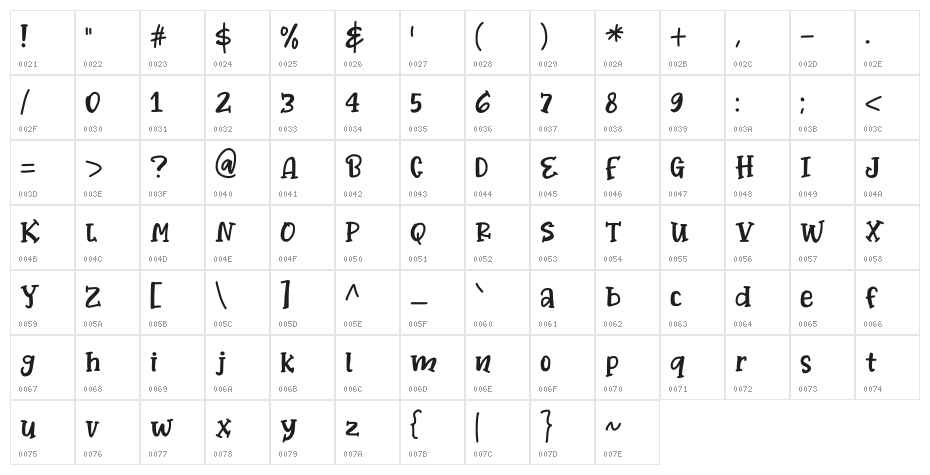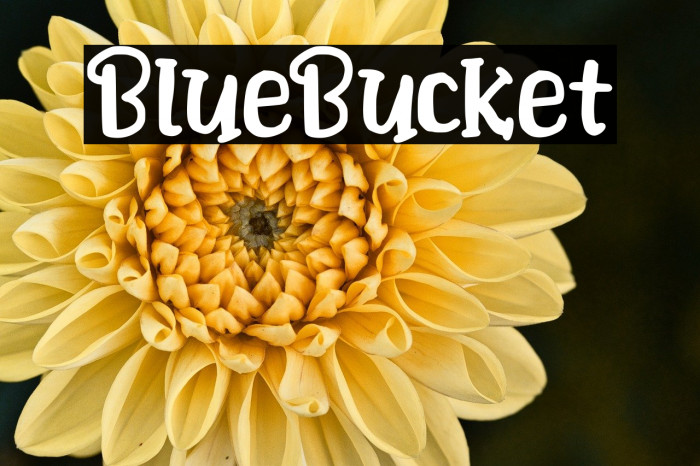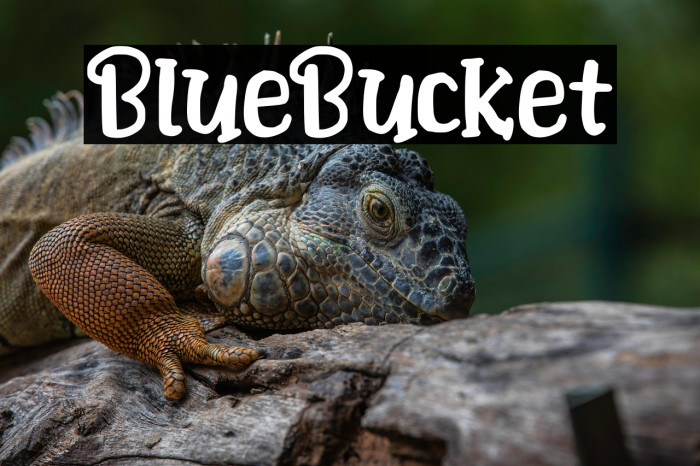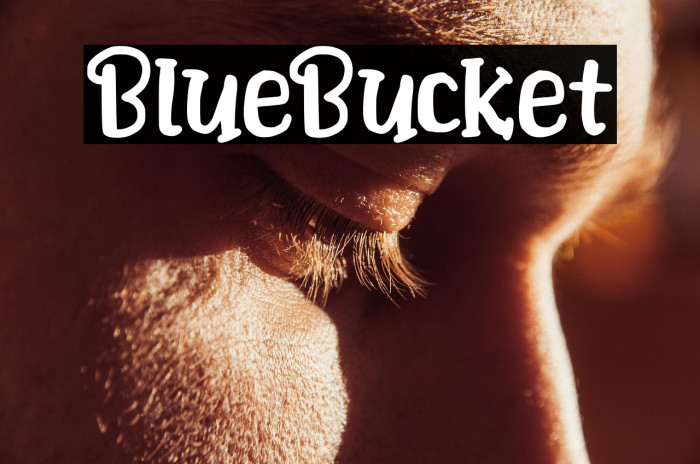
BlueBucket Font
BlueBucket Description
This font features a playful and whimsical style, characterized by its bold, rounded strokes and slightly irregular shapes. The letters have a hand-drawn appearance, with a casual and friendly vibe. The uppercase and lowercase letters maintain a consistent style, with the uppercase being slightly more pronounced. Numbers and special characters are designed to match the overall aesthetic, ensuring a cohesive look across all text. The font's unique charm makes it suitable for projects that require a touch of personality and creativity.
| Proposed Projects | Ideal for children's books, playful branding, greeting cards, and creative posters. |